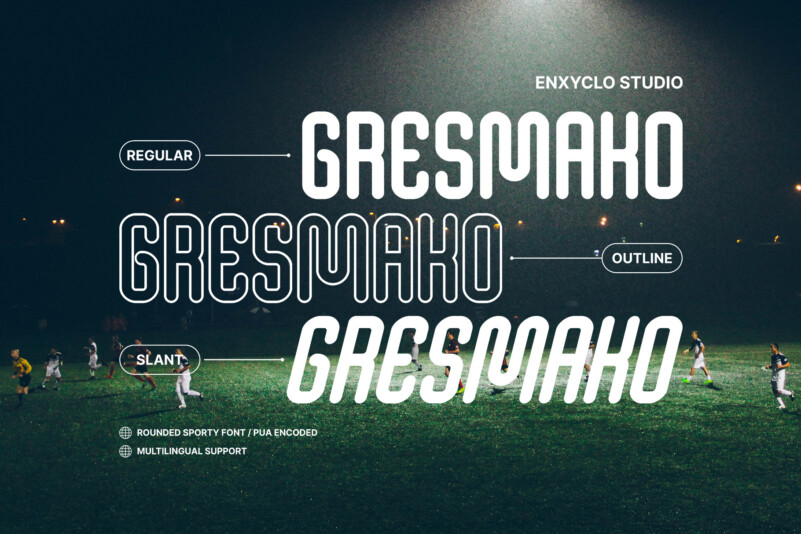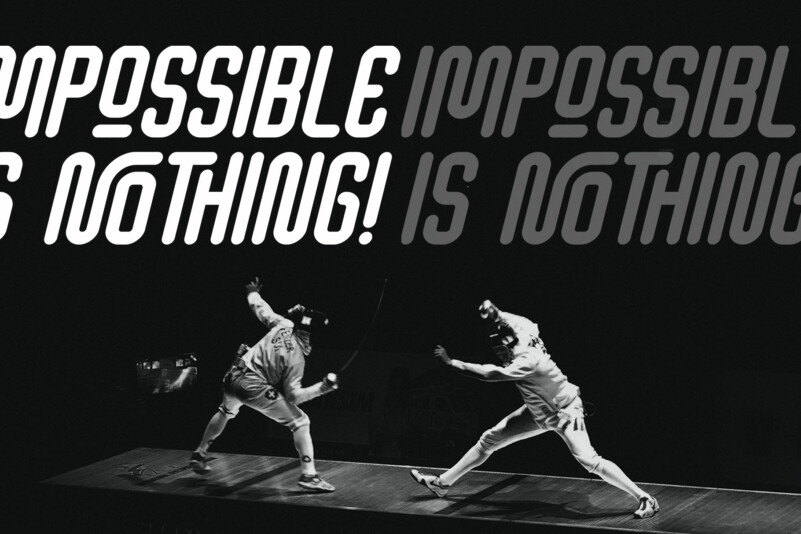
GRESMAKO Font
GRESMAKO Sans Serif Font is a rounded sporty font. It was purposely crafted to be used in large point sizes, although it doesn’t lose its magic in small point sizes. With this rounded sporty typeface, you can be even more expressive in your design projects. It is perfect for headline, billboard, magazines, website, titles, poster, branding, and logos. With this beautiful font, absolutely you can make your project stand out from the rest.
• 3 Styles: Regular, Outline & Slant
• Contains 383 Glyphs for Each Style (Total: 1.149 Glyphs)
• Uppercase, Lowercase, Numeral, Punctuation & Symbol
• Multilingual Support.